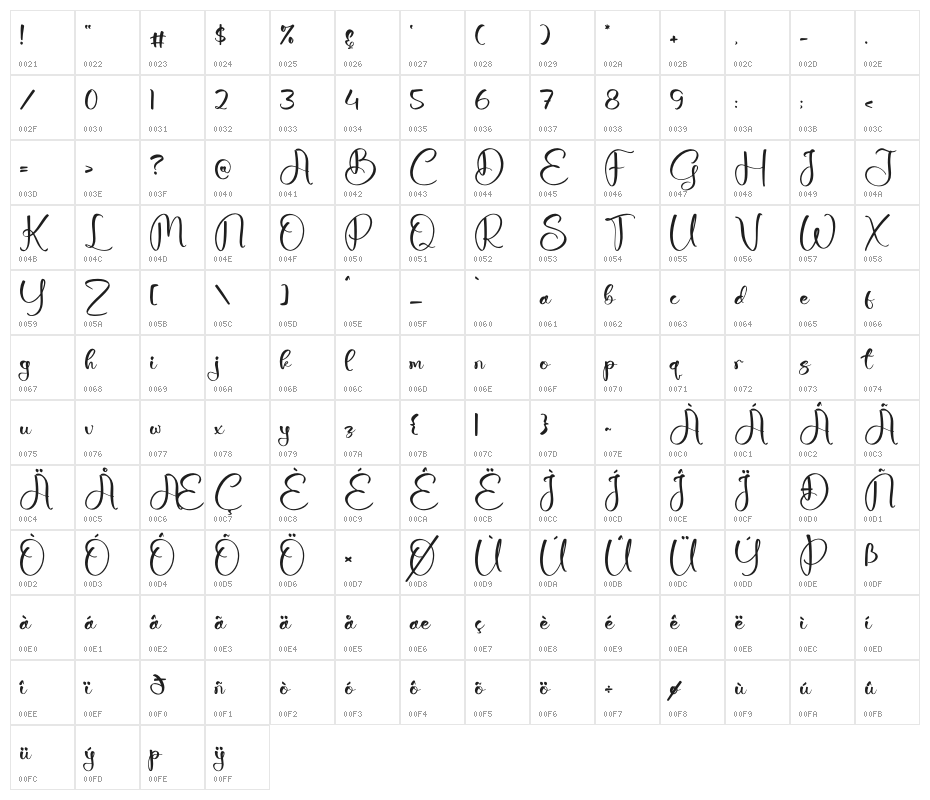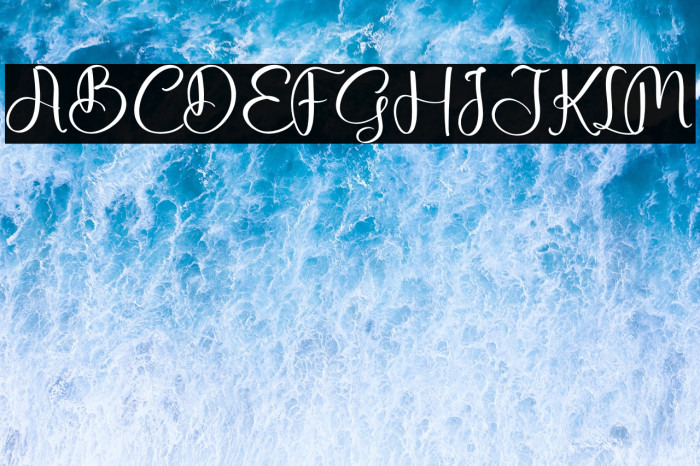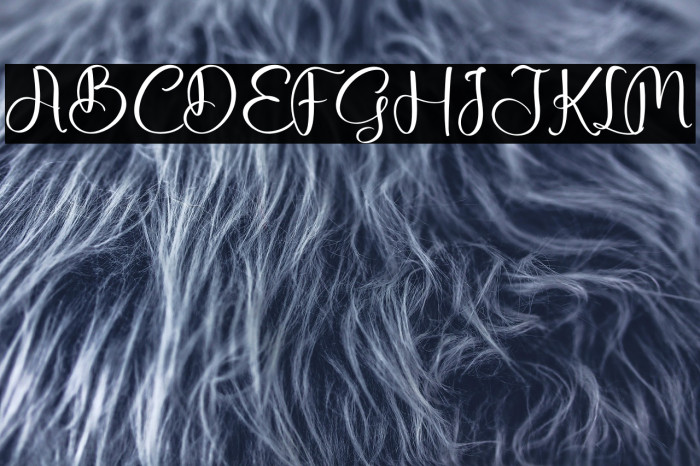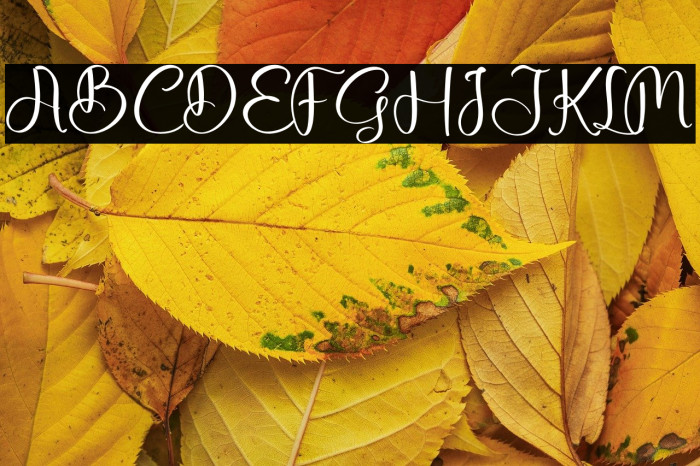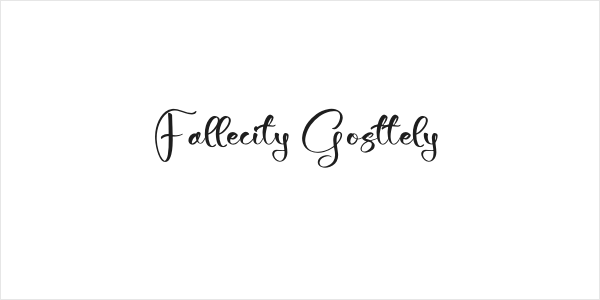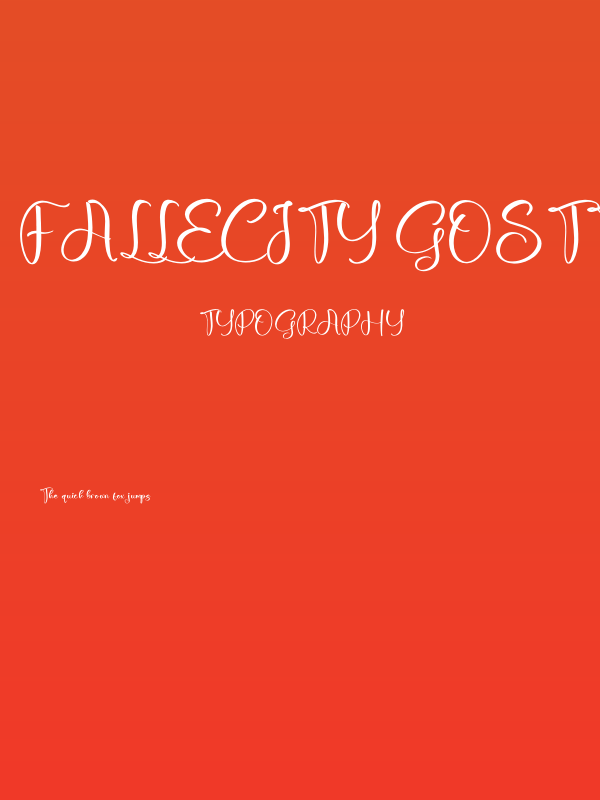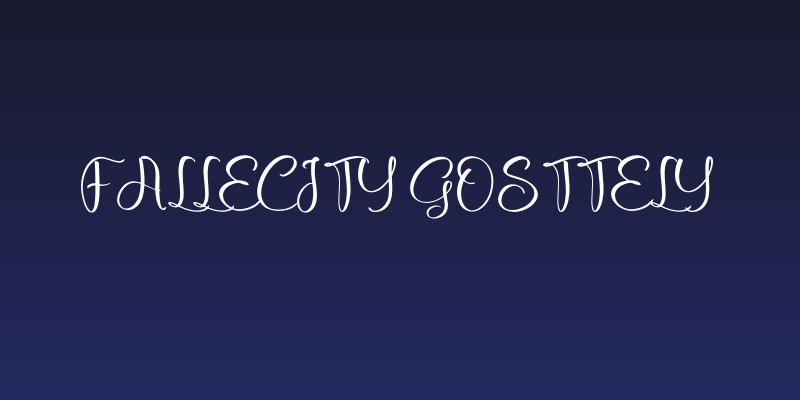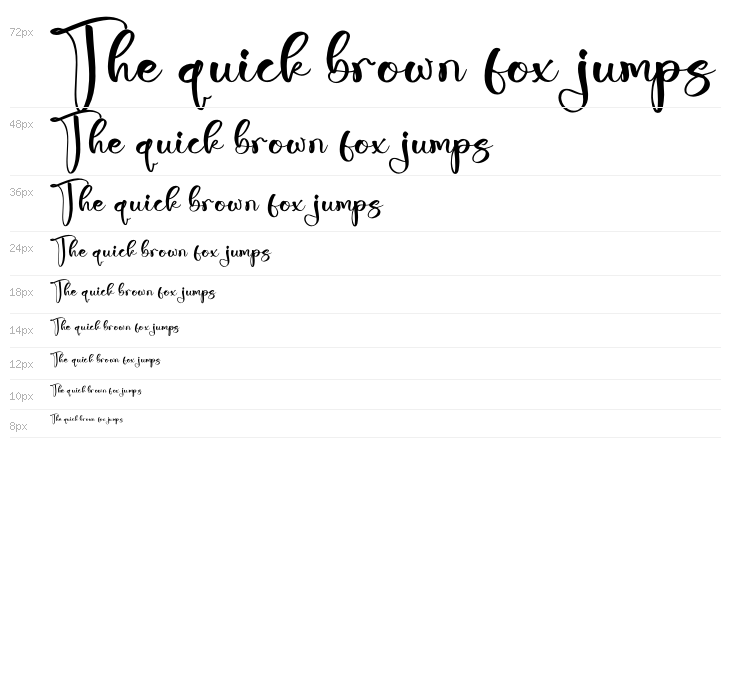
Fallecity Gosttely Font
Fallecity Gosttely Description
A decorative script font with a handwritten style, featuring smooth curves and a playful, casual appearance.
| Proposed Projects | Invitations, greeting cards, personal branding. |